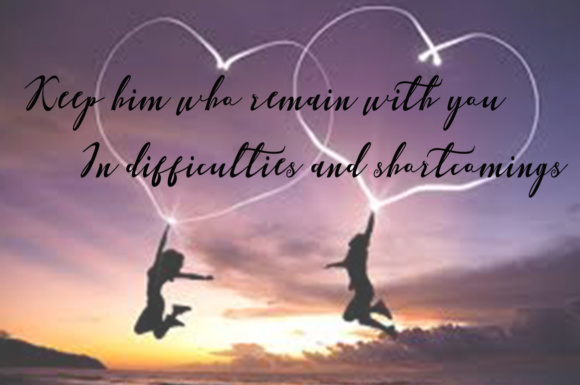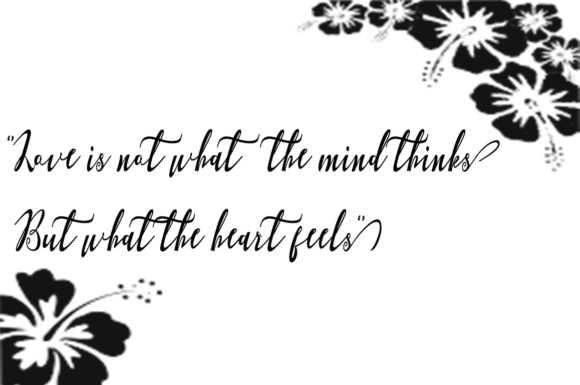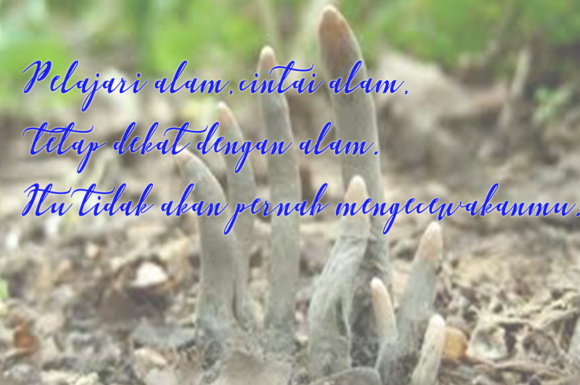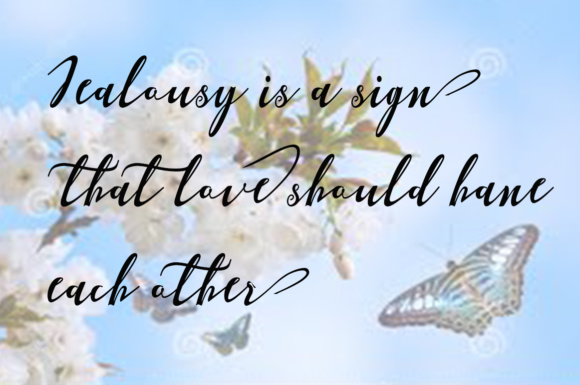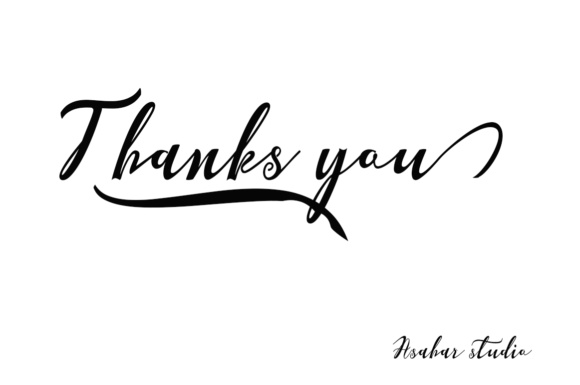
Bavterlay Font: Elevate Your Designs with a Personal Touch
In the world of design, typography plays a crucial role in conveying the message and aesthetic of a project. Among the myriad of fonts available, the Bavterlay font stands out for its unique blend of modernity and personal touch. This article delves into the characteristics, uses, and benefits of the Bavterlay font, making it a must-read for designers, crafters, and anyone looking to add a distinctive flair to their creations.
The Essence of Bavterlay Font
The Bavterlay font is a modern calligraphy font that embodies a natural writing style. This characteristic makes it an ideal choice for designers who seek to infuse their projects with a personal, handcrafted feel. Unlike traditional calligraphy fonts that might seem rigid or overly formal, Bavterlay strikes a perfect balance between elegance and approachability.
Key Features of Bavterlay Font
- Natural Writing Style: The font’s design mimics the fluidity and imperfections of handwriting, providing a warm and inviting look to any design.
- Modern Calligraphy: With its roots in calligraphy, Bavterlay offers a contemporary twist that fits well with current design trends.
- Versatility: Its unique yet legible style makes it suitable for a wide range of projects, from branding and advertising to packaging and digital media.
- Elegance and Approachability: The font combines the sophistication of calligraphy with a friendly, accessible vibe, making it perfect for designs that require a personal touch.
Applications of Bavterlay Font
The versatility of the Bavterlay font makes it an excellent choice for various design projects. Here are some of the areas where Bavterlay can make a significant impact:
- Branding and Logo Design: Use Bavterlay to create a unique and memorable brand identity that stands out from the competition.
- Wedding and Event Stationery: Add a touch of elegance and personalization to wedding invitations, thank you cards, and other event-related materials.
- Packaging Design: Elevate your product packaging with a font that communicates care, quality, and personality.
- Digital Media: From social media graphics to blog headers, Bavterlay can enhance the visual appeal of your digital content.
Benefits of Using Bavterlay Font
Choosing the right font for your project can significantly affect its overall success. Here are the benefits of incorporating Bavterlay into your designs:
- Unique Aesthetic: Stand out with a font that offers a fresh and distinctive look.
- Emotional Connection: The personal touch of Bavterlay can help create an emotional connection with your audience.
- Flexibility: Use Bavterlay across various design projects, from print to digital, without compromising on style or legibility.
- Easy to Read: Despite its artistic nature, Bavterlay remains highly legible, making it suitable for both headings and body text.
How to Use Bavterlay Font Effectively
To maximize the impact of the Bavterlay font, consider the following tips:
- Pair with Complementary Fonts: Combine Bavterlay with simpler fonts to create visual hierarchy and contrast.
- Adjust Size and Color: Experiment with different sizes and colors to emphasize certain words or phrases.
- Consider Line Spacing: Ensure adequate line spacing to maintain readability, especially in longer texts.
The Bavterlay font offers a unique opportunity for designers and crafters to add a personal touch to their projects. With its modern calligraphy style and natural writing feel, Bavterlay can elevate your designs, making them more engaging and memorable. Whether you’re working on branding, packaging, or digital media, Bavterlay is a versatile choice that can help you achieve your creative goals. Explore the possibilities of Bavterlay and discover how it can transform your designs.